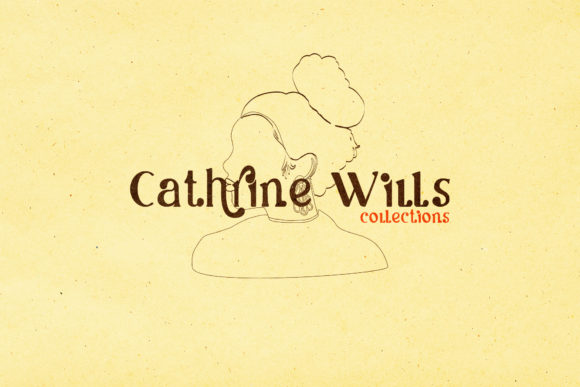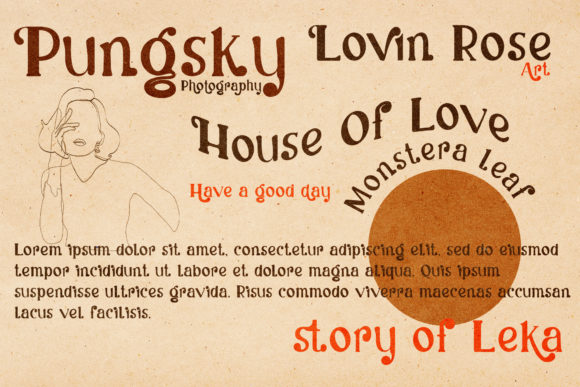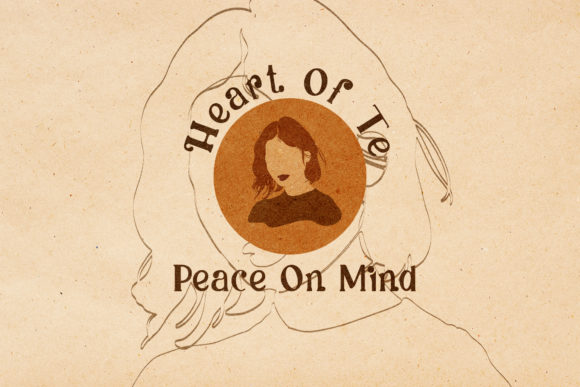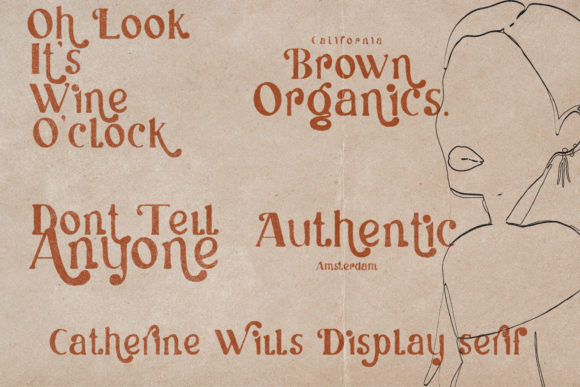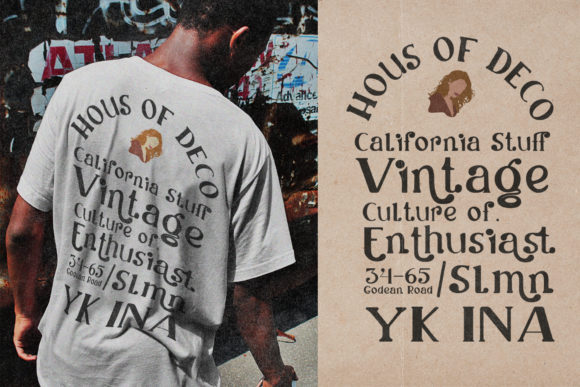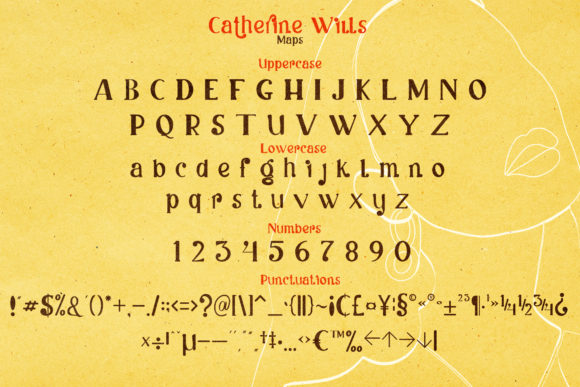
Introduction to Catherine Wills Font
Catherine Wills is an elegant and unique serif font.
Key Features of Catherine Wills Font
Why Choose Catherine Wills Font?